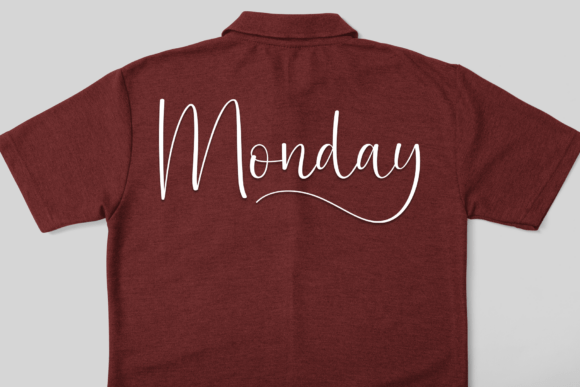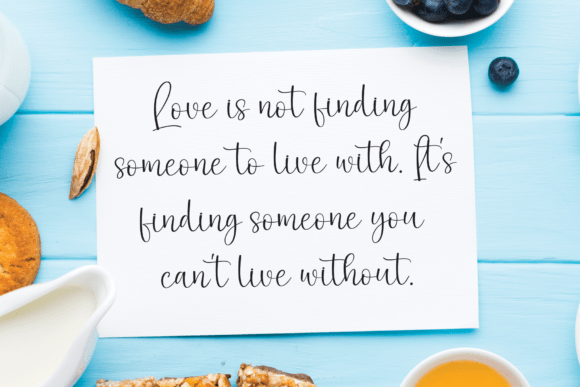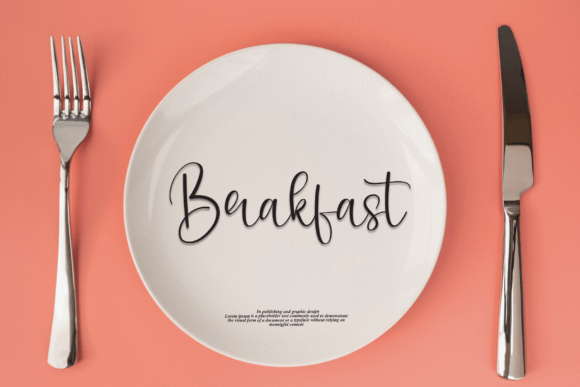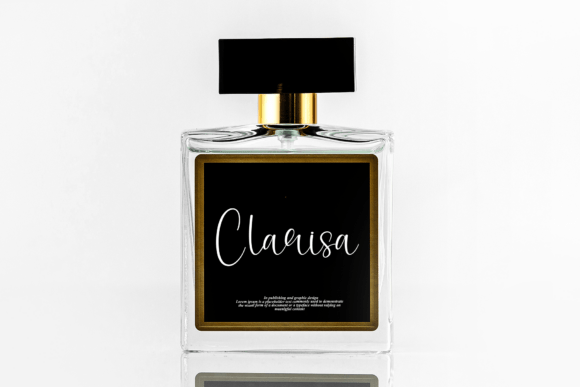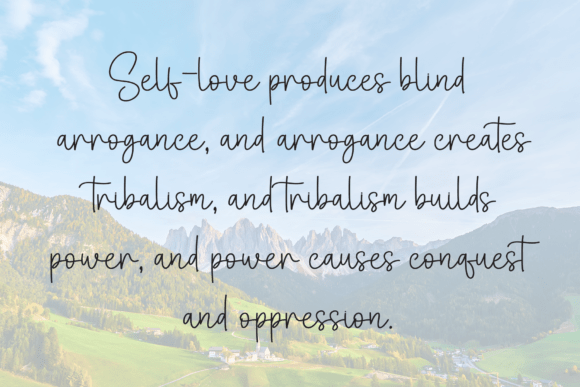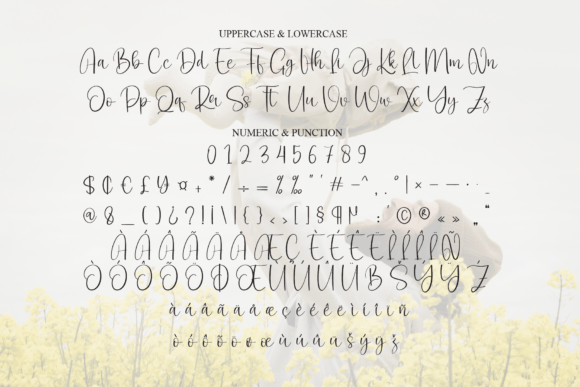
The Delight Daddy Font: Elevating Your Designs with Effortless Elegance
I’ll never forget the time I was working on a wedding invitation project, and my client asked for a font that exuded sophistication and romance. I scoured the internet, trying out various script fonts, but none seemed to capture the essence of what I was looking for. That was until I stumbled upon the Delight Daddy Font. ✨ Its elegant and expressive curves instantly won me over, and I knew I had found the perfect fit for my project.
So, what makes the Delight Daddy Font so special? Let’s dive into the good stuff! 😊
- ✅ Elegant and expressive script font with effortless beauty
- ✅ Features graceful curves and smooth connections for a sophisticated look
- ✅ Ideal for adding a handwritten feel to wedding invitations, logos, branding projects, and social media graphics
- ✅ Timeless charm that suits both romantic and refined designs
While the Delight Daddy Font is undoubtedly stunning, it’s not without its quirks. 🤔 Here are a few things to keep in mind:
- ⚠️ Limited availability of certain characters and glyphs
- ⚠️ May require adjustments to font size and spacing for optimal results
The Story Behind Delight Daddy Font
The Delight Daddy Font was created with the intention of capturing the essence of elegant, handwritten script. Inspired by classic calligraphy and refined typography, this font is designed to bring a touch of sophistication to any design. Whether you’re a designer, crafty hobbyist, or simply someone who appreciates beautiful typography, the Delight Daddy Font is sure to delight.
- Q: What type of designs is the Delight Daddy Font best suited for?
- A: The Delight Daddy Font is ideal for wedding invitations, logos, branding projects, and social media graphics that require a sophisticated, handwritten feel.
- Q: Is the Delight Daddy Font available in different weights or styles?
- A: Currently, the Delight Daddy Font is available in a single weight. However, you can experiment with different font sizes, spacing, and OpenType features to achieve varying effects.